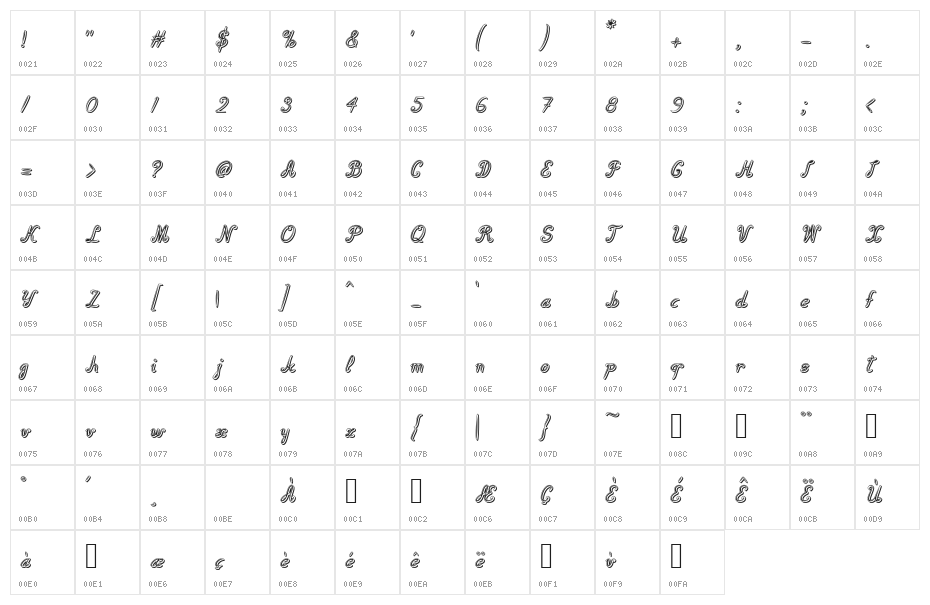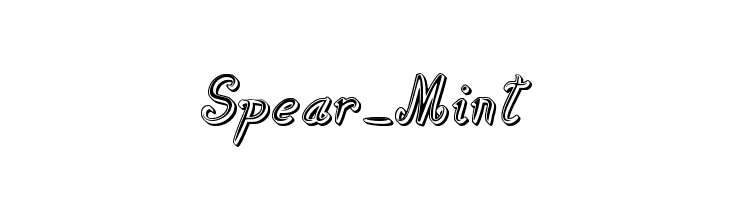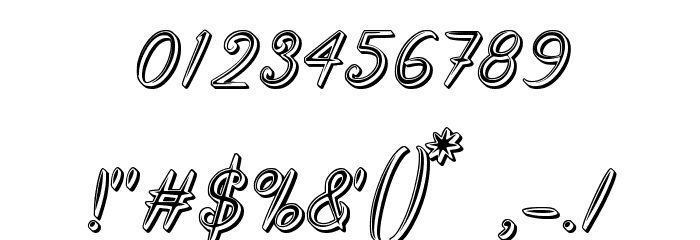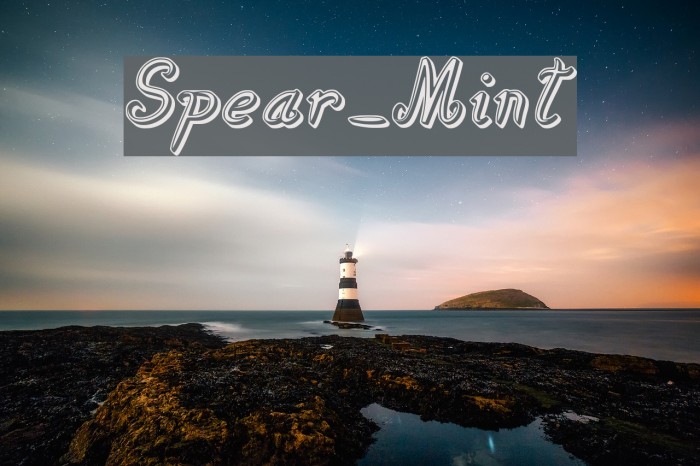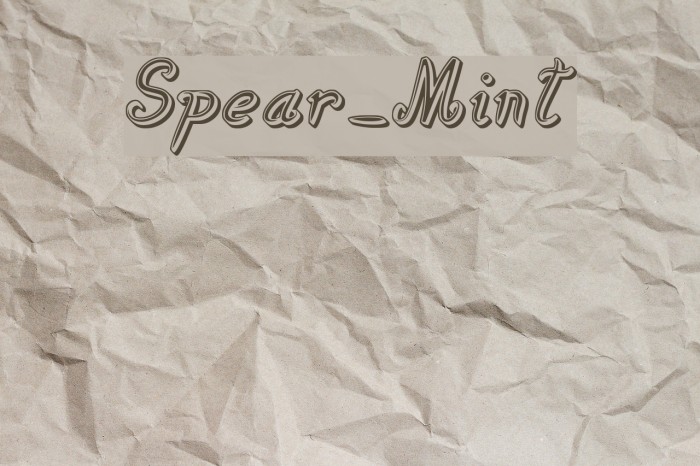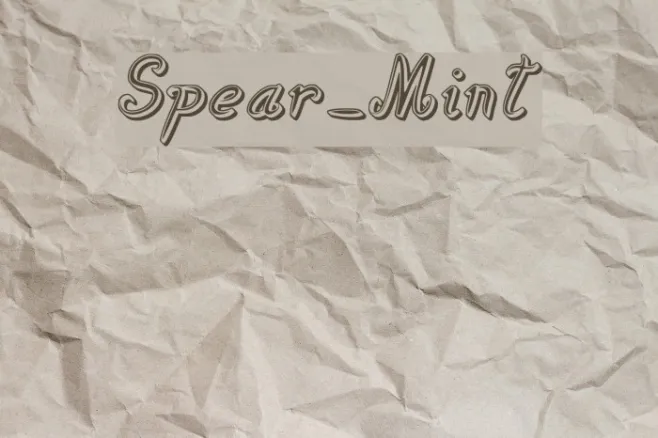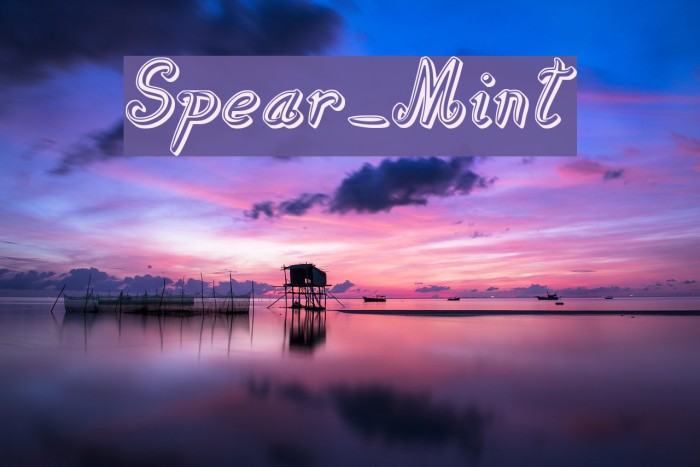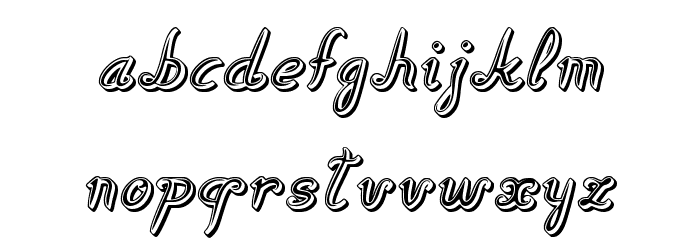
Spear_Mint Font
Spear_Mint Description
This font features a playful and dynamic script style with a bold, outlined appearance. Each character is crafted with a flowing, cursive design that incorporates a double-line effect, giving it a three-dimensional look. The uppercase letters are elegantly curved, while the lowercase letters maintain a consistent flow, enhancing readability. The numerals and special characters are designed to match the overall aesthetic, making them suitable for a variety of creative applications. The font's unique style is both eye-catching and versatile, perfect for projects that require a touch of whimsy and elegance.
| Use Case | Logos, Headlines, Decorative text |
| Proposed Projects | Ideal for greeting cards, invitations, playful branding, and decorative posters. |